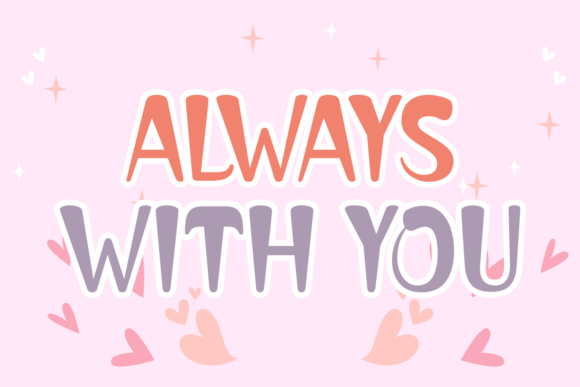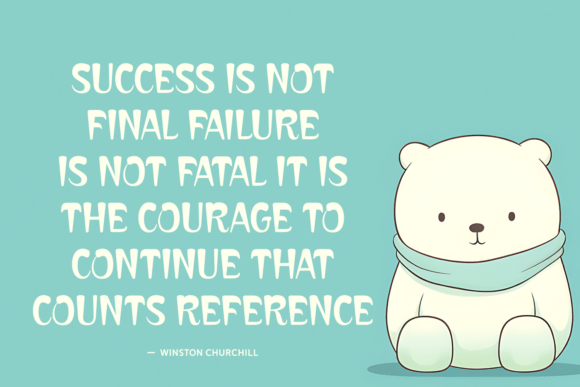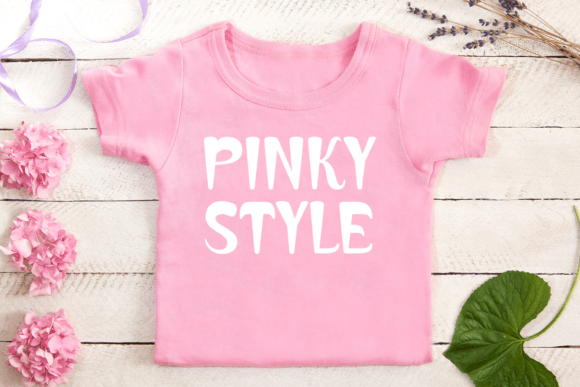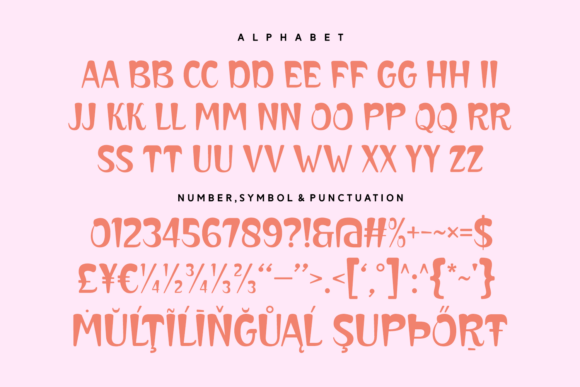
Introduction to Reality Check Font
Have you ever found yourself stuck in a creative rut, scrolling through design resources in search of that perfect font to elevate your next project? I know I have. It’s that moment of frustration, followed by excitement, when you stumble upon a font that speaks to your vision. For designers, finding the right font can be a game-changer. It’s what sets your work apart and makes it truly unforgettable.
That’s where the Reality Check Font comes in – a beautifully crafted display font that’s sure to spark inspiration. With its unique blend of adorableness and simplicity, this font is perfect for headlines, social media, and any creative project that needs a little extra oomph. And the best part? It’s available for free download, making it an invaluable design resource for designers of all levels.
Whether you’re working on a high-quality design project or just need a stylish font to enhance your social media presence, Reality Check Font is a valuable addition to your design arsenal. With its transparent background and multilingual support, this font is as versatile as it is charming. So why wait? Dive into the world of Reality Check Font and discover a new level of creative expression.
Key Features of Reality Check Font
- High-quality design resource ideal for creative projects, including graphic design, digital art, and typography.
- Transparent background, allowing for seamless integration with any design element.
- Perfect for use in modern designs, with a clean and minimalist aesthetic.
- Comes in a range of sizes, from 12pt to 72pt, and is optimized for resolutions up to 300 DPI.
- Unique characteristics include a bold, sans-serif design and a subtle texture that adds depth and interest.
- Designed to be highly legible and versatile, making it suitable for a wide range of creative projects and applications.
Honest Review: Reality Check Font
I recently had the chance to work with the Reality Check Font, and I must say it’s been a game-changer for my creative projects. This high-quality font is a fantastic addition to any designer’s toolkit, and I’ve found it to be incredibly versatile.
- High-quality design: The Reality Check Font is expertly crafted, with a focus on clean lines and a modern aesthetic.
- Transparent background: This feature makes it easy to overlay the font on any background, giving me more flexibility in my designs.
- Limited character set: While the Reality Check Font has a good selection of letters and symbols, it’s not as extensive as some other fonts I’ve used.
- Not ideal for body text: Due to its modern aesthetic, this font is best suited for headlines and titles, rather than body text.
Overall, I’m really impressed with the Reality Check Font. Its high-quality design, transparent background, and free download make it an excellent resource for designers. While it may have some limitations, I’ve found it to be a valuable addition to my design toolkit.
Reality Check Font
The Reality Check Font is ideal for creative projects that require a unique and eye-catching design. Use it for presentations, documents, social media graphics, and more. Its high-quality design and transparent background make it a versatile design resource.